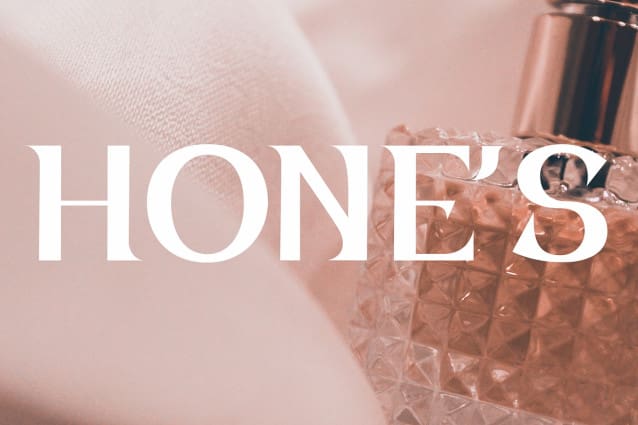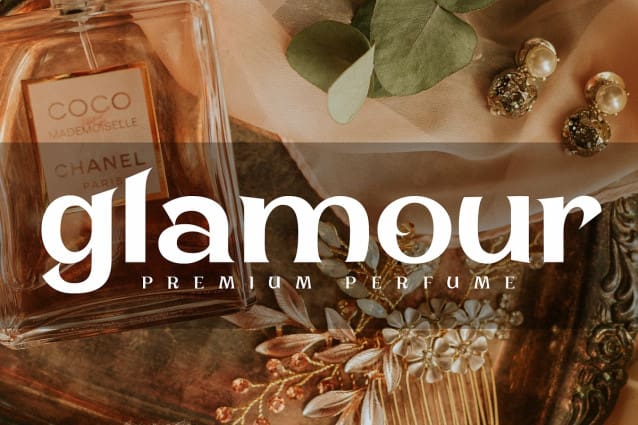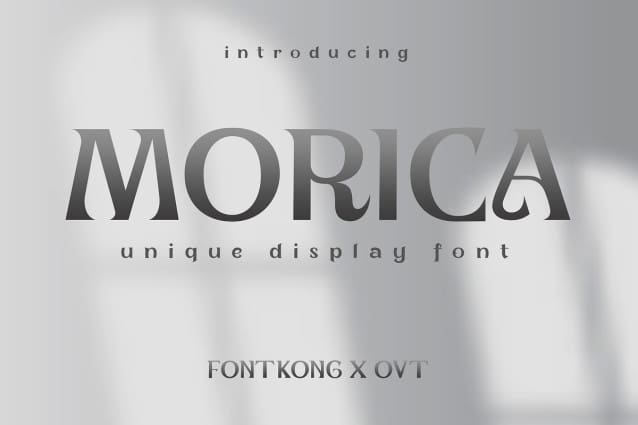
Morica Font
Morica Font, a unique display font that brings a touch of individuality and character to your design projects. Perfect for graphic designers, typographers, and creatives seeking to make a memorable impression, Morica offers a one-of-a-kind style that stands out from the crowd.
Ideal for headlines, posters, logos, packaging, and branding materials, Morica’s unconventional shapes and quirky details provide a refreshing and distinctive aesthetic. Each character is meticulously crafted to exude personality and charm, making your designs unforgettable and engaging.
The “Morica” font includes a full set of uppercase and lowercase letters, numbers, punctuation marks, and a selection of stylistic alternates. This versatility allows for endless creative possibilities, whether you’re designing eye-catching advertisements or crafting unique brand identities.
Set your designs apart with Morica Font, a unique display font that adds a touch of individuality and creativity to every project.